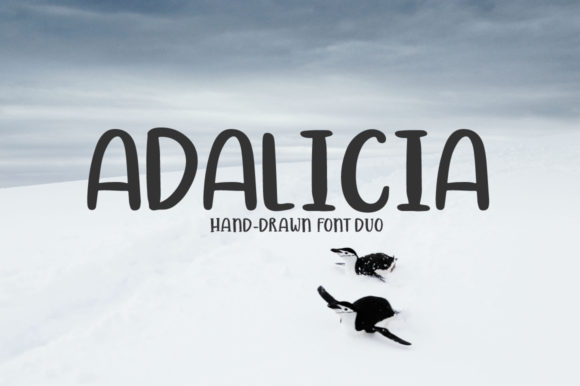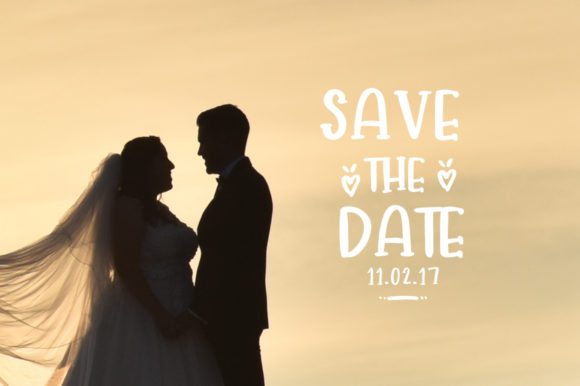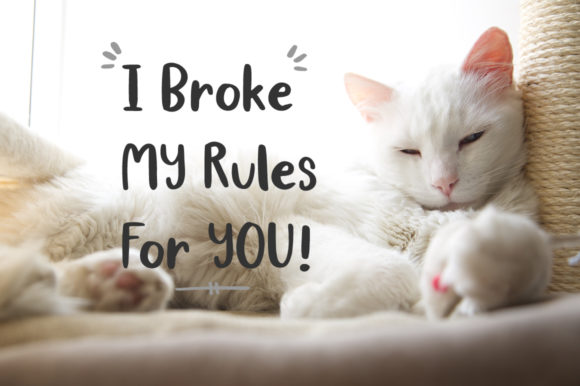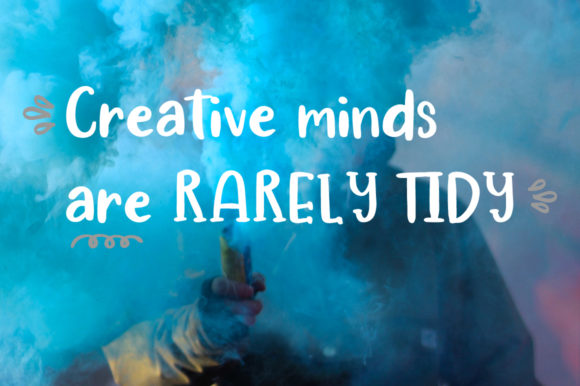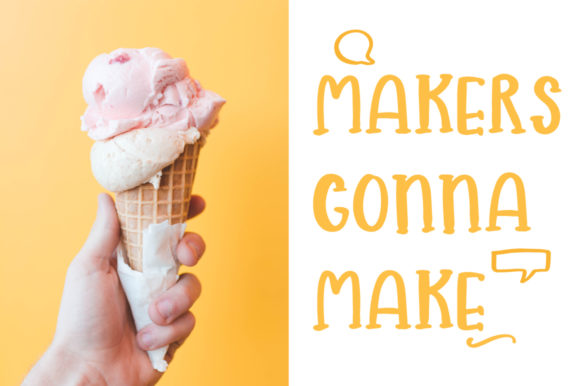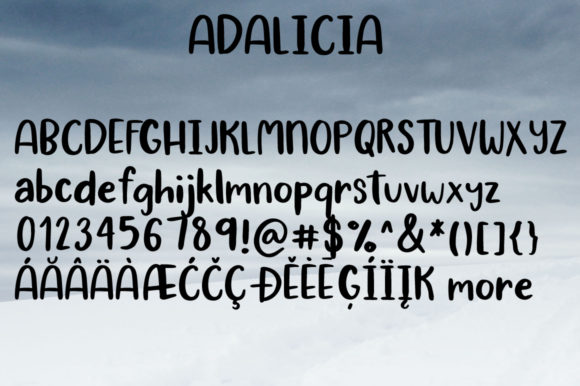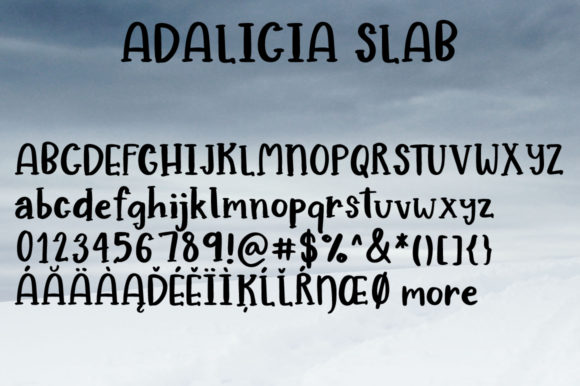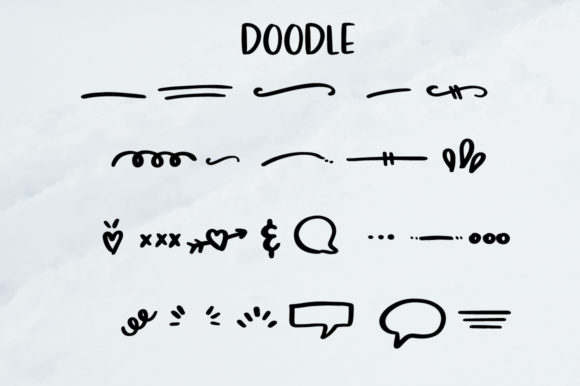
Adalicia Font
About Adalicia Font
The Adalicia Slab is a beautiful handwritten font. Its elegant, but striking style makes it perfect for giving a personal touch to your designs.